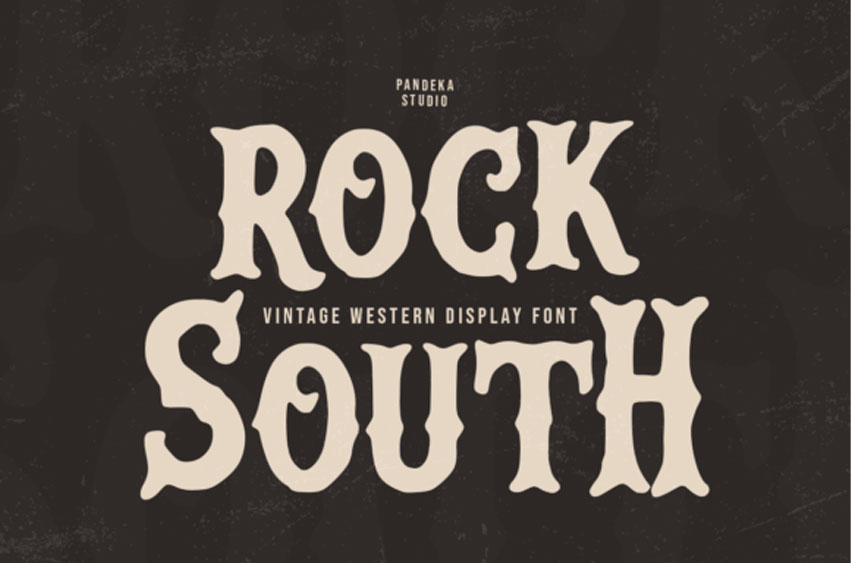
Rock South Font is a powerfully nostalgic vintage western display font, defined by its chunky, distorted curves and rugged, retro aesthetic that captures the spirit of the old frontier.
This robust Rock South font features a bold weight and distinct wavy edges, blending the appeal of classic signage with a heavy-duty, slightly grunge texture. It is the definitive vintage western display font for projects that need an authentic, hand-painted, or saloon-style look, such as craft beer labels, music album art, themed event posters, and bold, impactful restaurant branding.
The unique, bouncing silhouette of the Rock South typeface ensures your message looks both established and energetically retro.